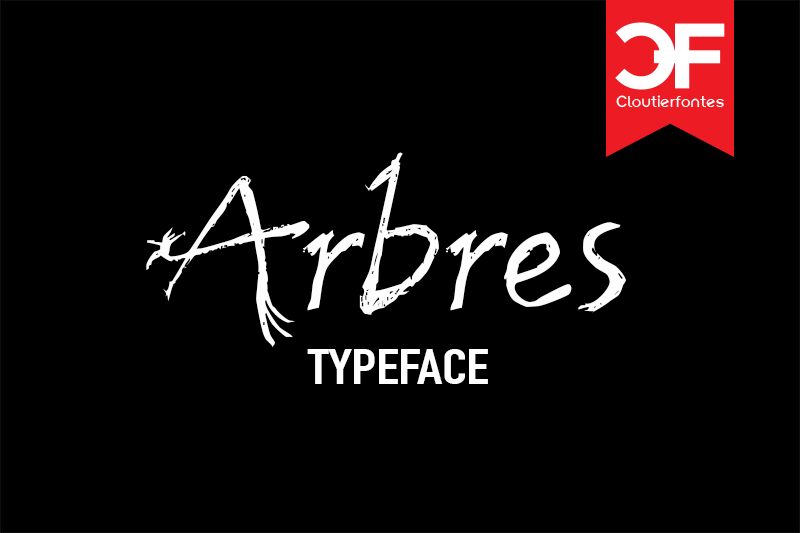
CF Arbre by Cloutier Fontes is a free distressed script font with the raw look of hurried ink lettering. Its narrow, uneven letters shift between dry scratches and dark pooled strokes, with long spikes, ragged joins, and sudden changes of direction sharpening the silhouette.
Concert posters are its strongest setting, since the restless marks can echo punk flyers, underground club graphics, and abrasive album art. It also suits horror film titles and streetwear merchandise. These uses point toward audiences drawn to raw noise, DIY culture, independent music, and deliberately unruly lettering.
CF Arbre Regular is a font by CloutierFontes, designed by Steve Cloutier in 2010.